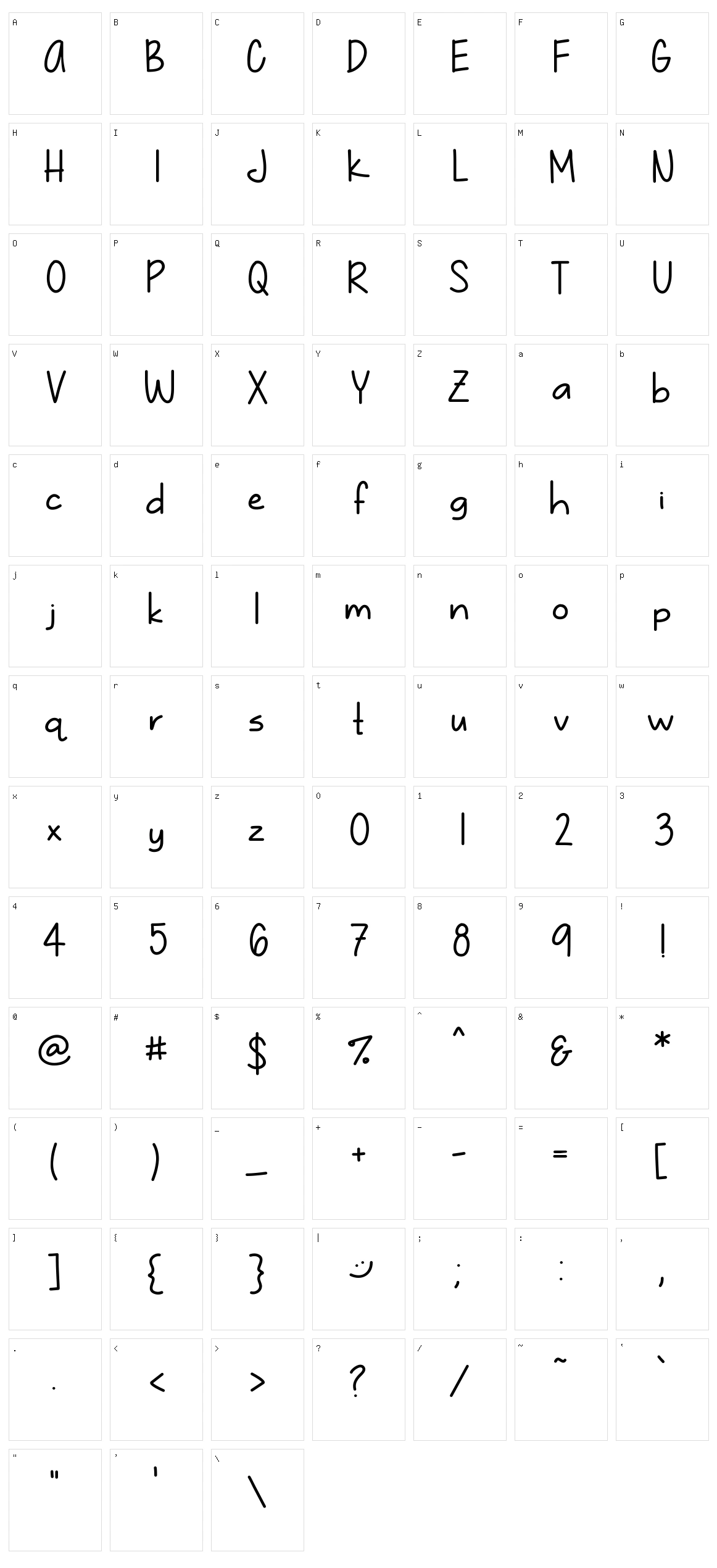
The free font Just Gotta Smile is carefully designed by Vanessa Bays, showcasing a thoughtful balance of creativity and usability and falls under the Script font style. When you download the ZIP file, it contains only 65.74 KB of font files, making it lightweight and quick to download. Please review the license details below to understand permitted usage and distribution rights. If license information is not available, we recommend using this font for personal projects only or contacting the author directly for commercial usage permissions.